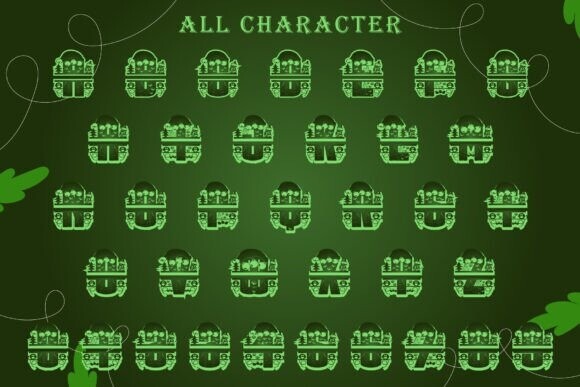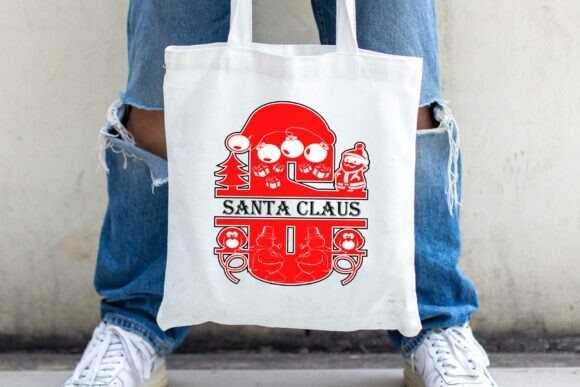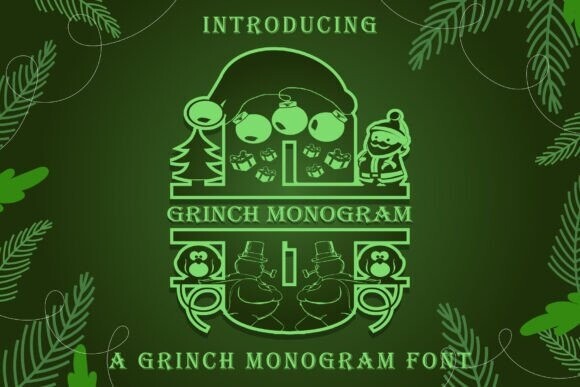
Grinch Monogram Font
Grinch Monogram Font is a gorgeous decorative font, that fits incredibly well to this time of the year. No matter the topic, this font will be an incredible asset to your fonts’ library, as it has the potential to elevate any creation.